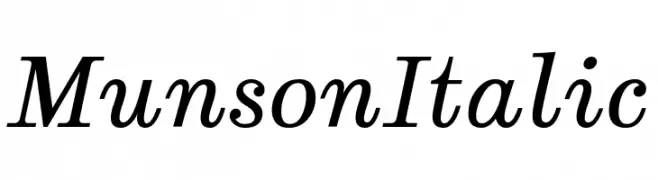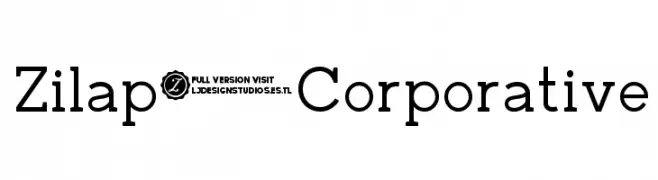
( Commissioned - alterkproject.googlepages.com )
An elegant italic serif font with smooth curves and sharp serifs.
( Footnote Fonts )
A bold, high-contrast serif font with a classic and robust style.
( JLH Fonts - jlhfonts.blogspot.com/ )
A bold, classic serif font with high contrast and strong strokes.
( LJ Design Studios - www.ljdesignstudios.com )
A clean, professional serif font with balanced proportions and clear readability.
( PJM Homebrew Fonts - pauljmiller.wordpress.com/ )
An elegant italic serif font with classic, flowing letterforms.
( Roger White - web.archive.org/web/20120416090521/www.rogersfonts.org.uk/ )
A classic serif font with elegant serifs and moderate contrast, offering a timeless and sophisticated look.
( Roger White - web.archive.org/web/20120416090521/www.rogersfonts.org.uk/ )
A bold, classic serif font with strong strokes and elegant serifs.
A classic serif font with high contrast and elegant letterforms.
A classic serif font with small caps and moderate contrast, ideal for formal and traditional designs.
An elegant, classic italic serif font with refined, flowing characters.